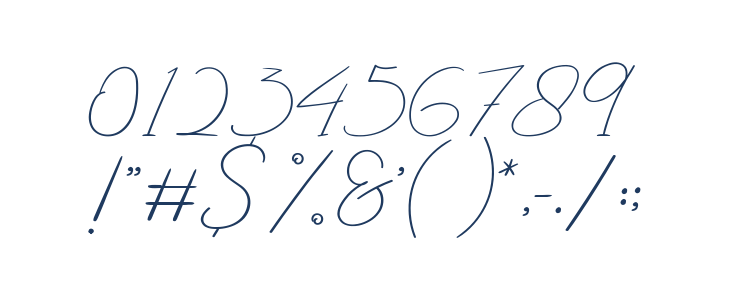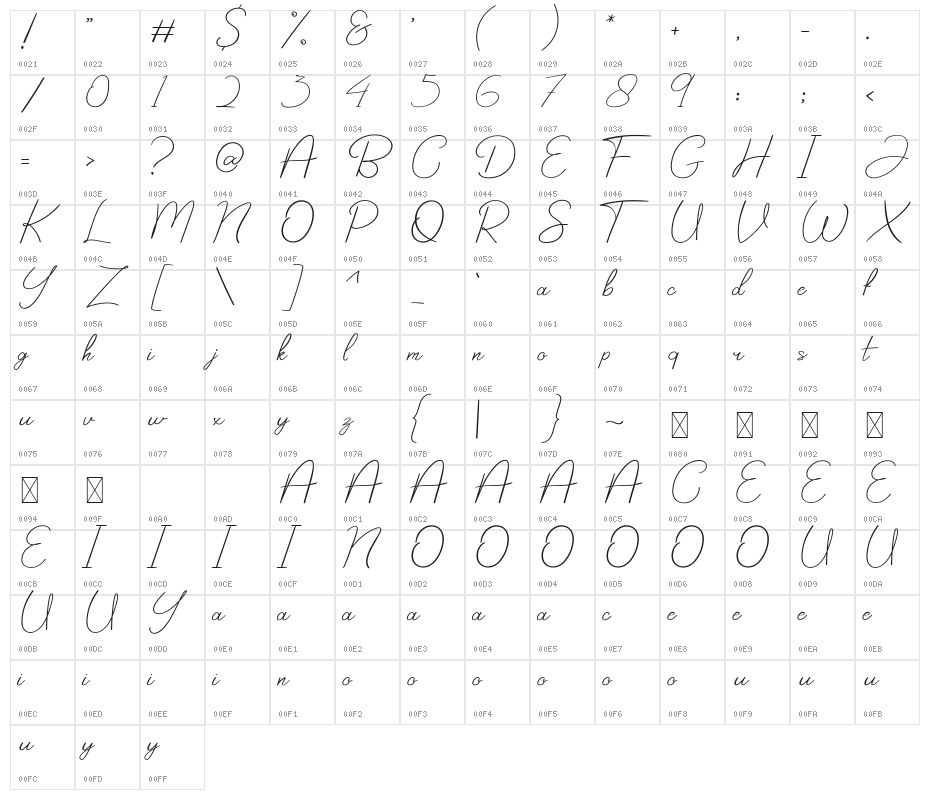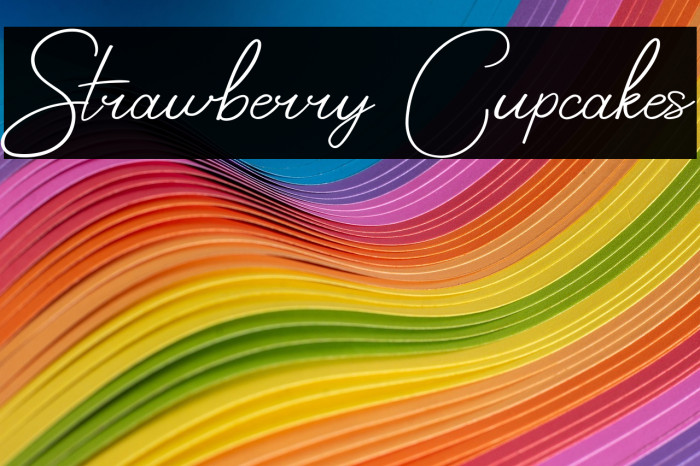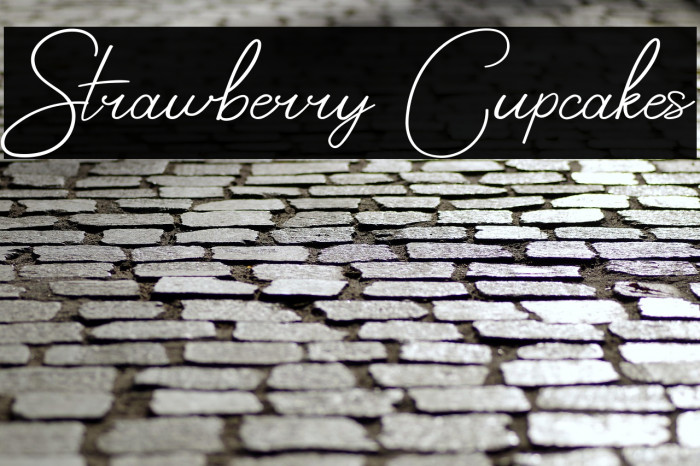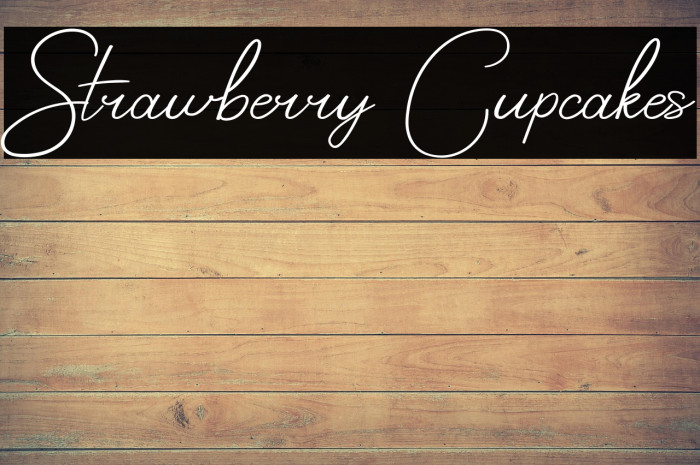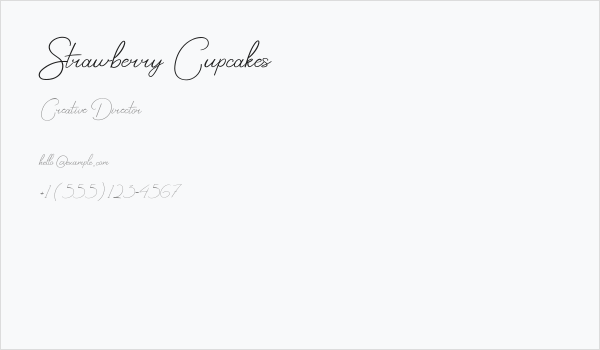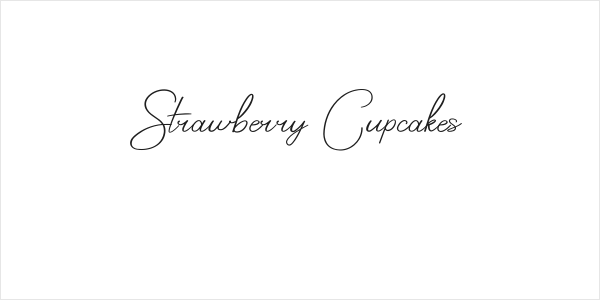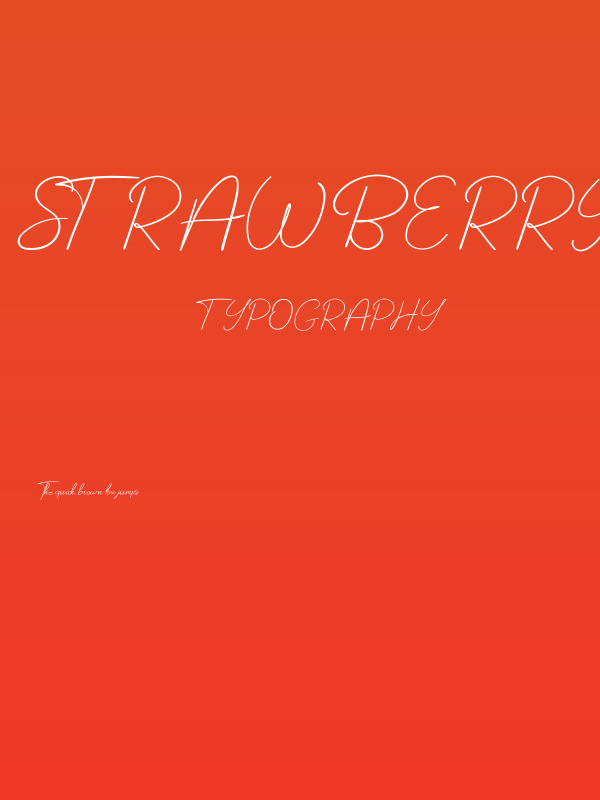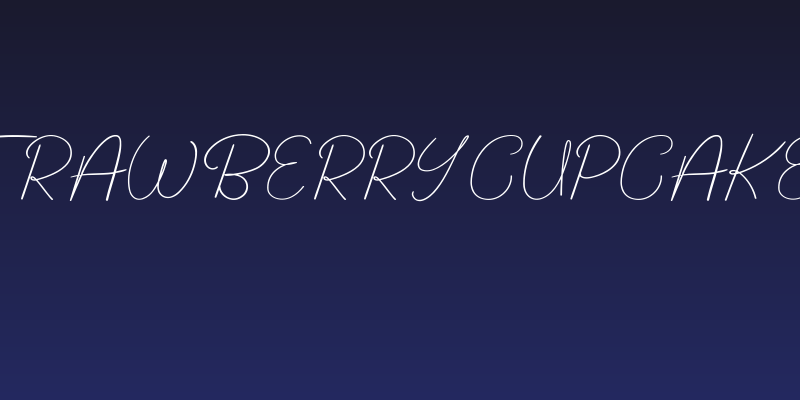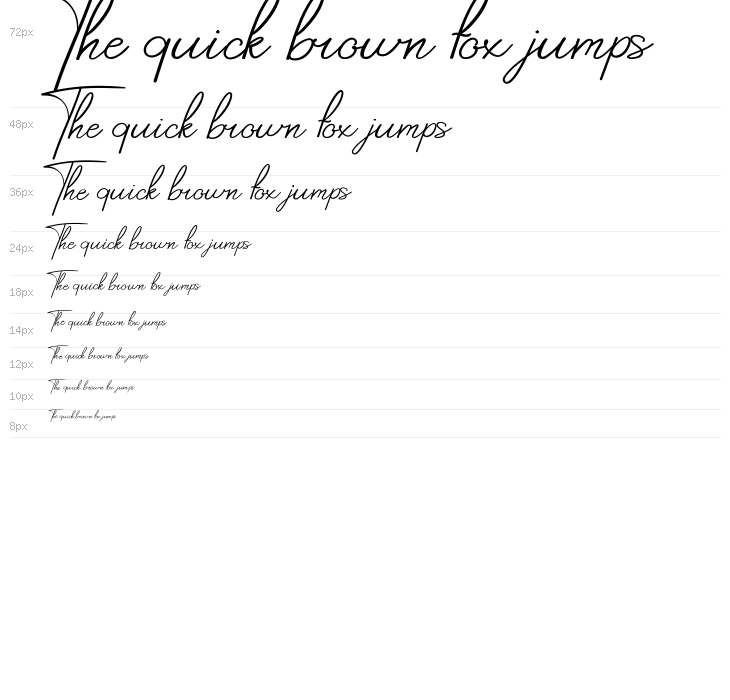
Strawberry Cupcakes Font
Strawberry Cupcakes Description
This elegant script font features a flowing, cursive style with a delicate and sophisticated appearance. The characters are interconnected, creating a seamless and fluid look that mimics natural handwriting. The uppercase letters are tall and graceful, while the lowercase letters maintain a consistent slant, enhancing the overall harmony of the design. The numerals and special characters are crafted with the same attention to detail, ensuring a cohesive aesthetic throughout. This font's thin strokes and gentle curves make it ideal for projects that require a touch of elegance and refinement.
| Proposed Projects | Ideal for wedding invitations, elegant branding, personal stationery, and romantic quotes. |